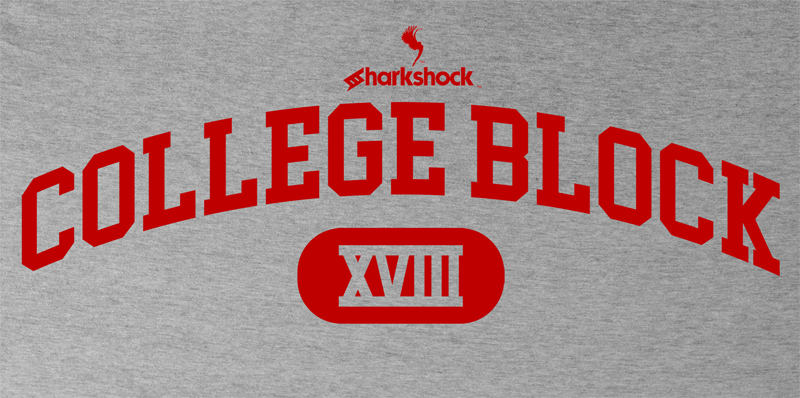
Preview and download College Block Font. Created by Sharkshock in Fancy Old School styles with Free for personal use license.
OTF and TTF: College Block Dennis Ludlow 2016 all rights reserved by Sharkshock dennis@sharkshock.net WAKE UP!! Class is in session! College Block is a modified version of Blockletter Tall featuring many new glyphs and of course serifs reminiscent of that used on collegiate sweatshirts. Kerning and European accents are included. Use it for your own tees or campus project. This font like my others are free for personal use only as long as this readme file stays intact. For commercial use please contact me at dennis@sharkshock.net to discuss an end user license agreement. You can also visit www.sharkshock.net/license for more info. I also design custom fonts for businesses, logos, and many other things. If you'd like to leave me a PayPal donation you can use my email address above. Your generosity will be most appreciated! visit www.sharkshock.net for more and take a bite out of BORING design! tags: stylish, display, font, typeface, publishing, logo, title, book, cover, company, brand, branding, sans, serif, poster, headline, retro, movie, university, childrens, kids, teen, sorority, fraternity, beer, college, collegiate, famous, sweatshirt |